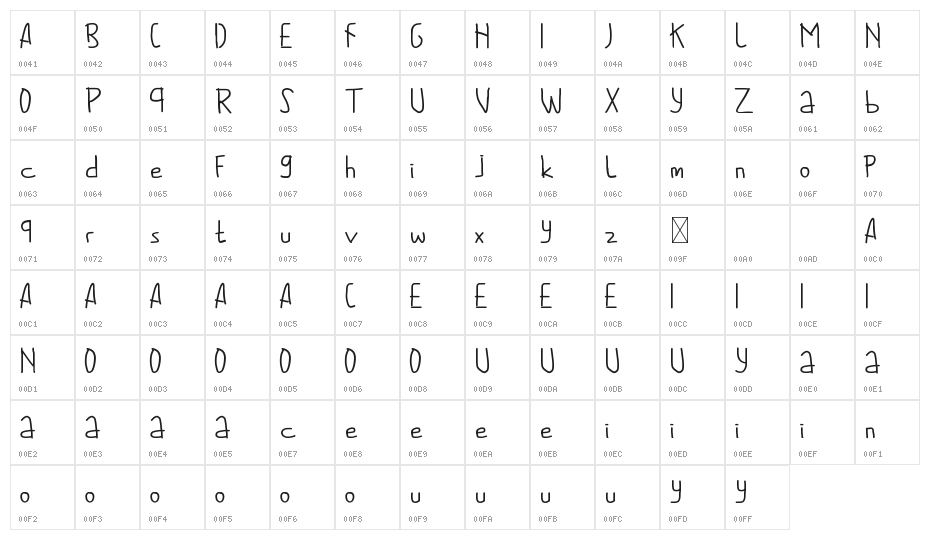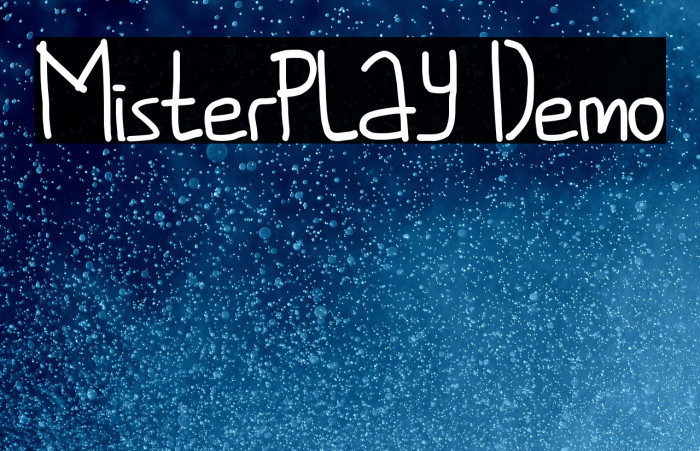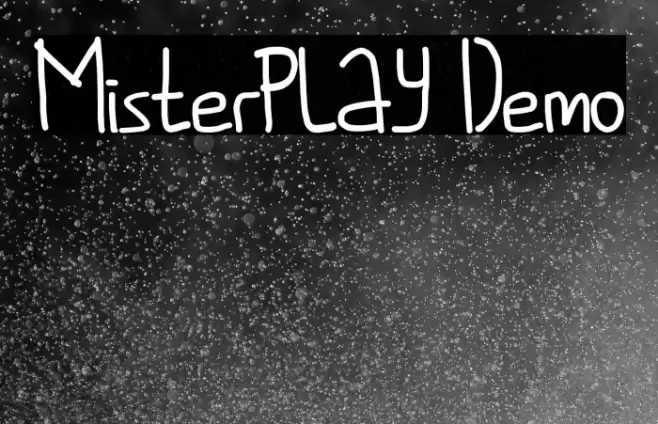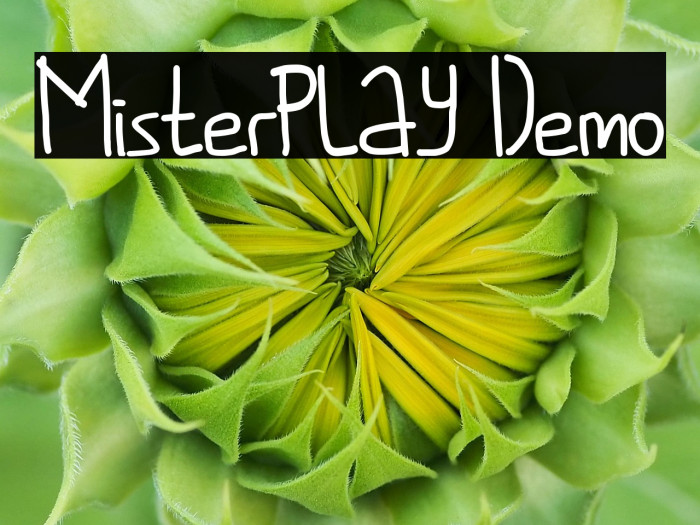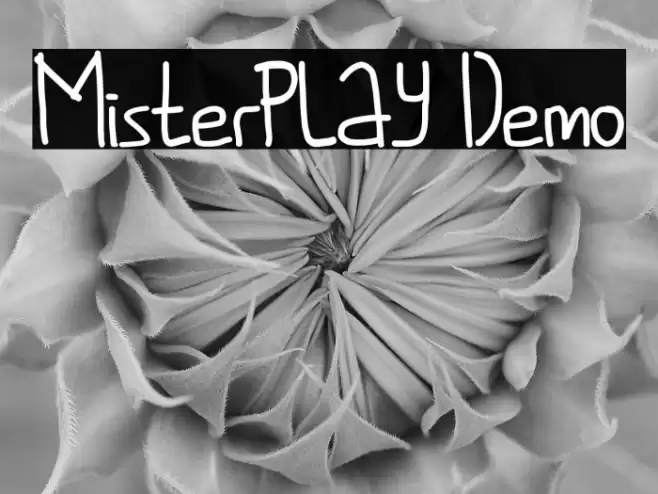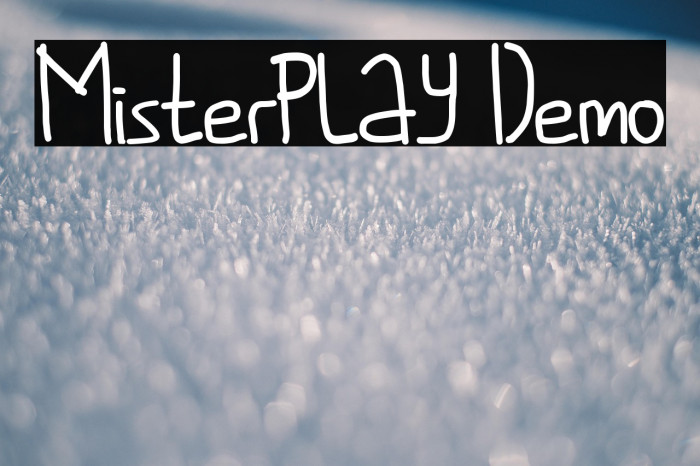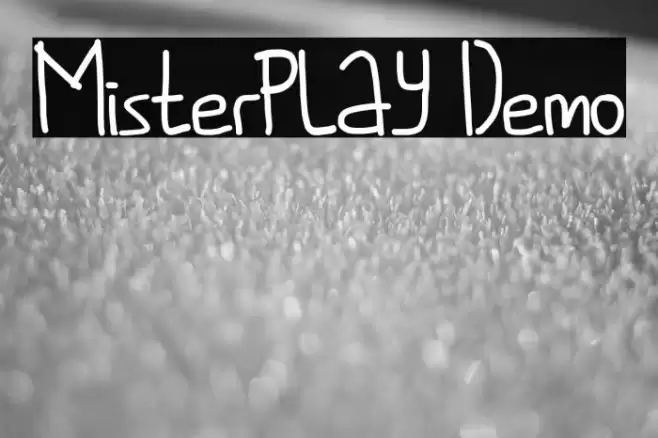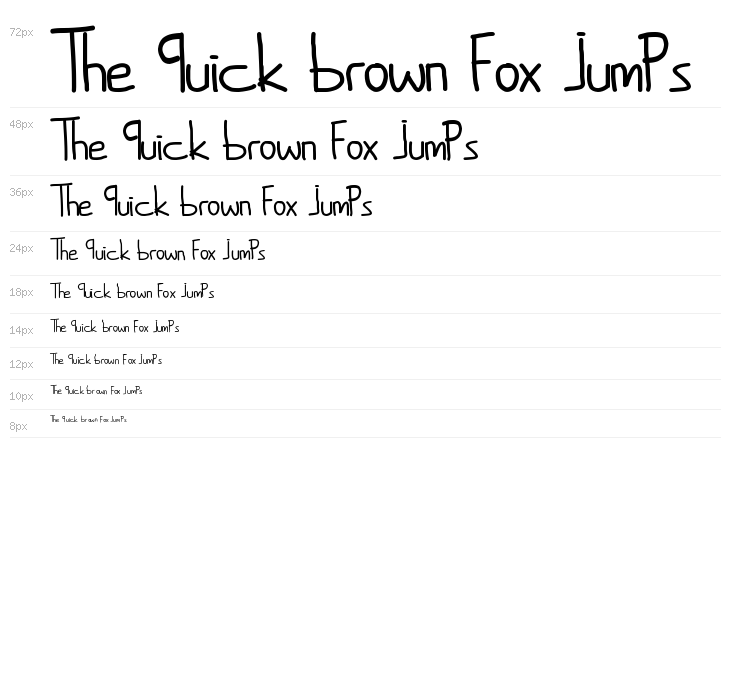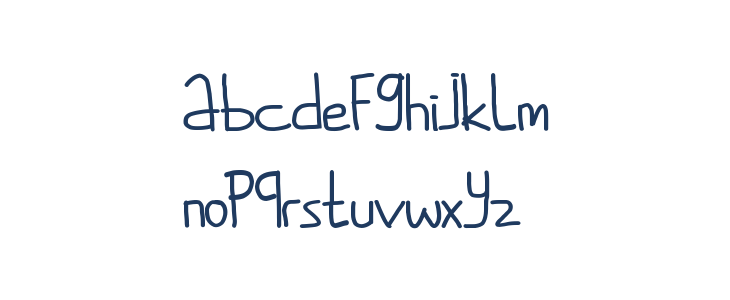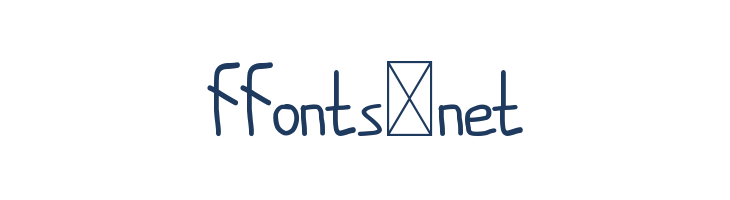
Misterplay Demo Font
Misterplay Demo Description
This font features a playful and casual handwritten style, characterized by its tall, narrow letters and slightly irregular strokes. The uppercase letters are bold and prominent, while the lowercase letters maintain a consistent flow with a touch of whimsy. The numbers and special characters are crafted to match the overall informal aesthetic, making it suitable for projects that require a personal touch. The font's unique charm lies in its ability to convey a sense of friendliness and approachability, making it ideal for creative and informal contexts.
| Use Case | Headlines, Informal text, Creative projects |
| Proposed Projects | Ideal for greeting cards, children's book covers, playful branding, and social media graphics. |